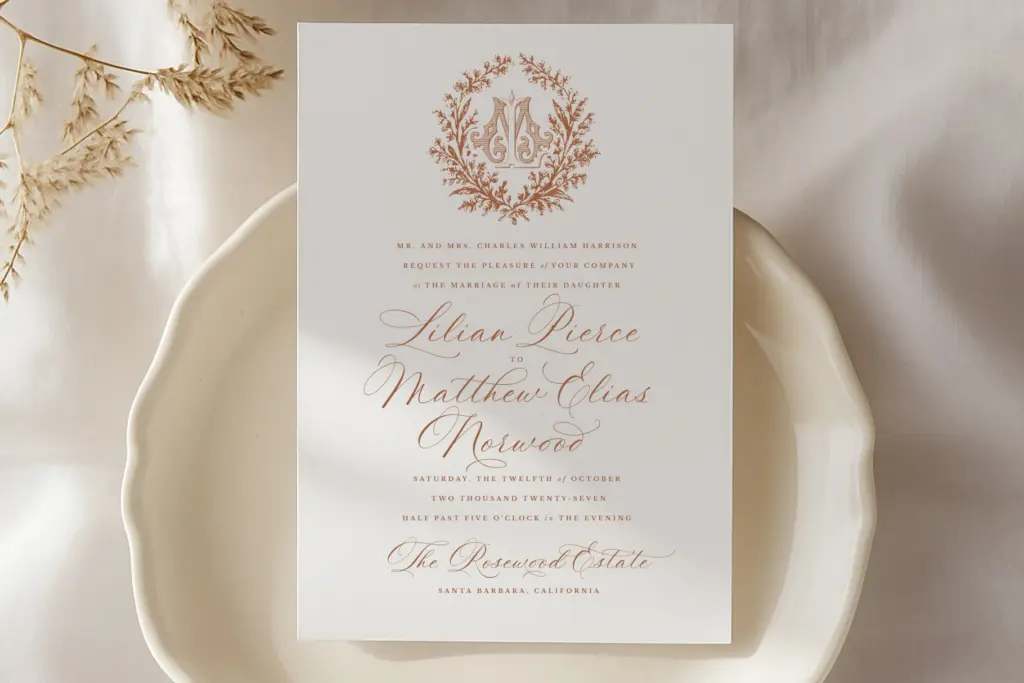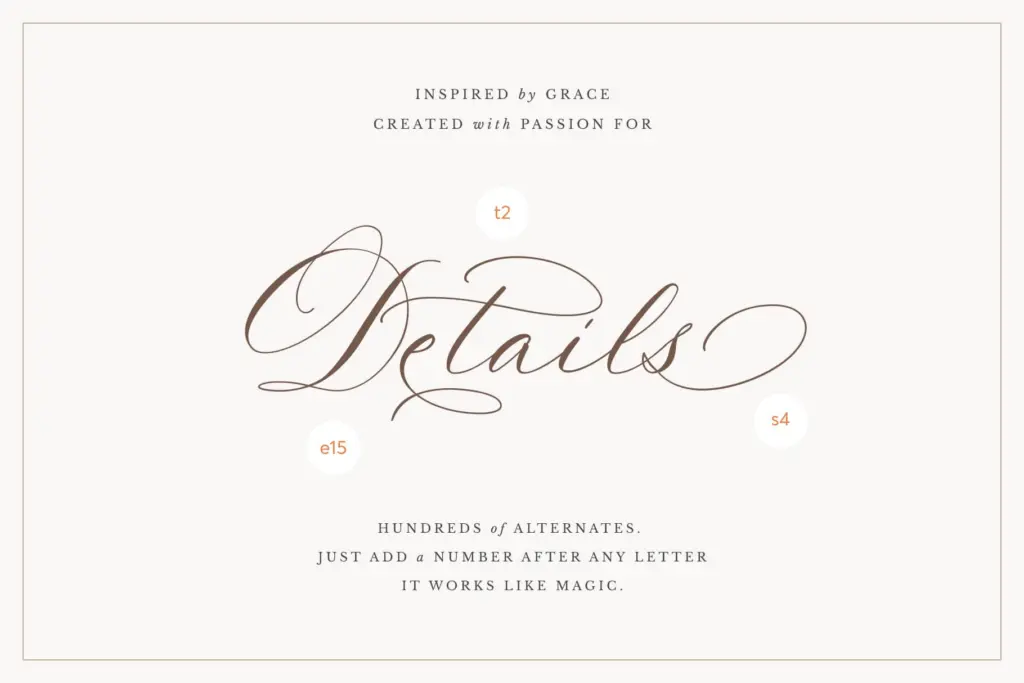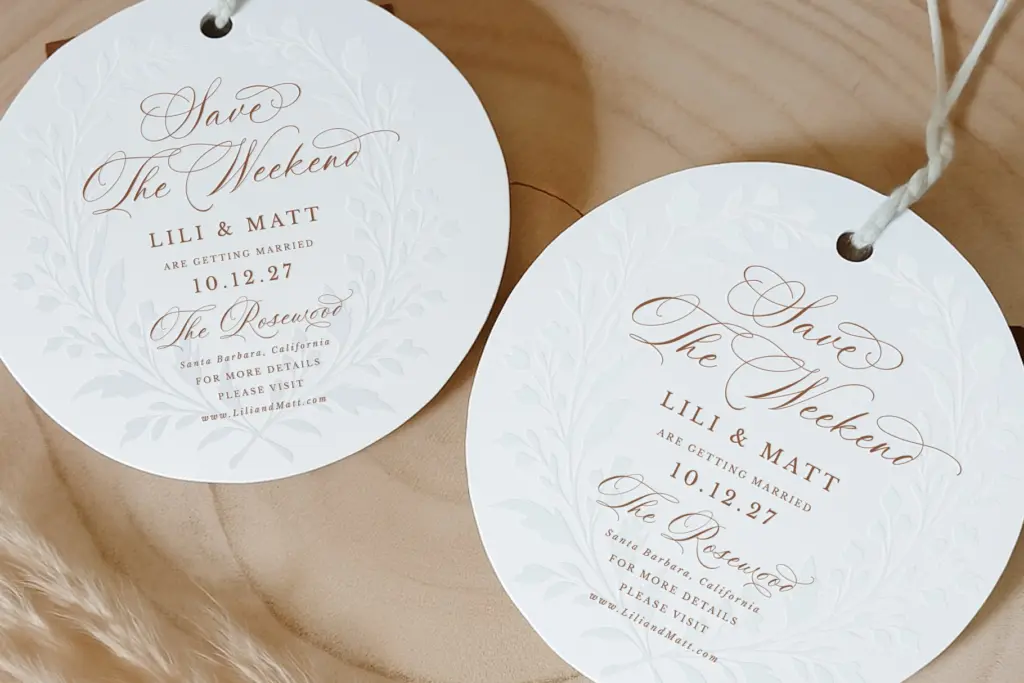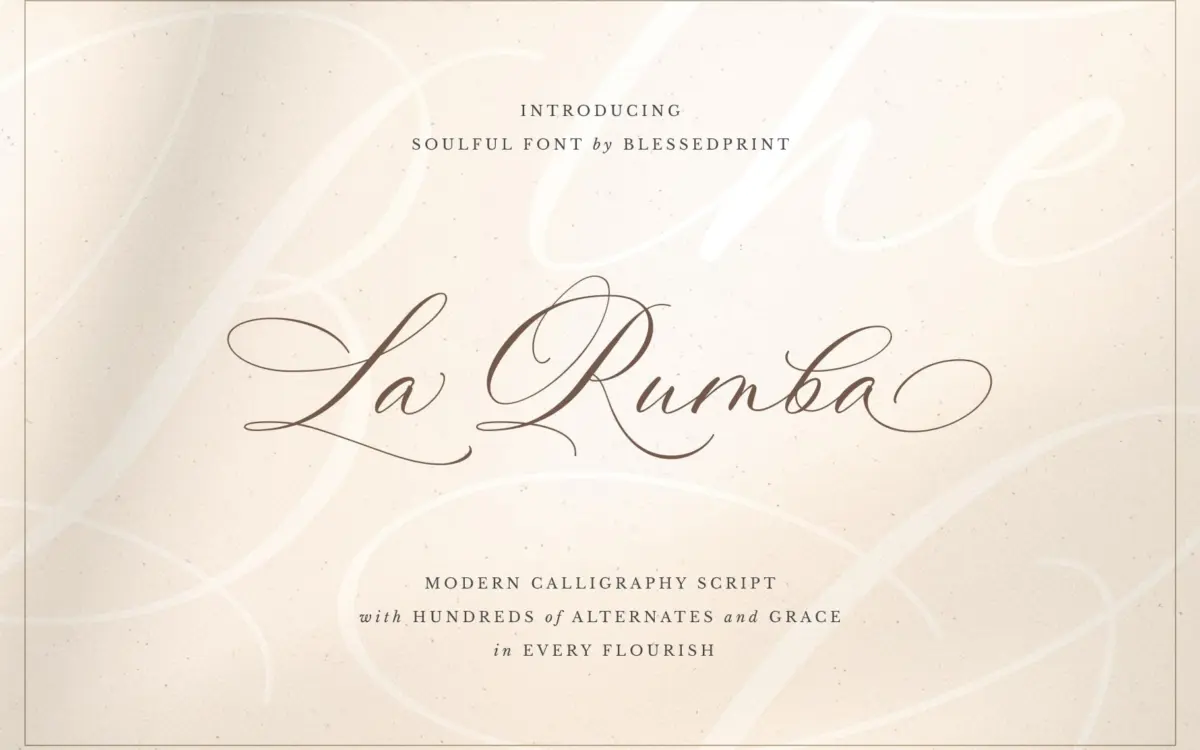
La Rumba sits in the crowded field of modern calligraphy scripts: a connected, brush-influenced lowercase built on a slanted baseline, paired with more restrained capitals that carry the flourish work. The joins are loose rather than mechanical, which gives the font its handwritten claim, but the underlying letter construction is disciplined enough that words don’t collapse into noise. Stroke contrast is moderate — enough to read as calligraphic, not so much that thin hairlines vanish at small sizes. The overall mood is romantic rather than casual, closer to invitation lettering than to a marker-pen sketch.
What separates it from a plain script is the sheer volume of alternate forms built into the design. The lowercase in particular has been drawn with rhythm in mind — long entry and exit strokes that are meant to be swapped in and out depending on neighbouring letters, so a word can be tuned rather than left to default. That’s a design decision as much as a technical one: it assumes the user will spend time adjusting glyphs rather than typing and walking away.
The glyph count here is substantial: over 750 alternates, ligatures and swashes across roughly 1,120 glyphs, with up to 20 lowercase alternates per letter and 6 to 10 capital variations. That’s a genuinely deep character set, and it’s supported by contextual alternates that automatically swap in different first and last letters per word, so simple typing already produces some variation without manual intervention.
Beyond that, the font relies on a numbered-suffix system (typing a letter followed by a number to trigger ligatures) and a plus-sign convention for extra stylistic options, plus bracketed codes for starting and ending swashes. This is a font built for software that supports OpenType features and PUA access — Adobe applications, mainly, though the listing states Canva compatibility as well. Roman numerals are included, useful for invitation dates and anniversary work. The trade-off of this depth is a learning curve: getting the most from La Rumba means opening the glyph panel, or at minimum working through the accompanying PDF, rather than trusting the default typing behaviour to look finished.
This is a font for set pieces, not paragraphs — wedding invitations, save-the-dates, place cards, monograms, packaging labels and signage where a handful of words carry the whole design. The swash capitals and flourished lowercase reward large sizes: a name on a card, a word on a label, a logotype where every letterform gets attention. It is not built for body copy or anywhere legibility at small sizes matters more than character.
Given the target uses listed — wedding designers, luxury packaging, tattoo artists, signage — La Rumba is aimed squarely at decorative, single-word or short-phrase applications rather than general branding systems that need a script to hold up across many contexts. Anyone doing high-volume production work, like personalising many names for stationery, will find the alternate system genuinely useful once learned; anyone wanting fast, no-fuss results from default typing may find it more font than the job requires.
- Extensive alternate and swash system gives real control over rhythm and variation
- Contextual alternates automatically vary word-start and word-end letters without manual work
- Roman numerals and PUA encoding make it usable across different software setups
- Getting good results depends on learning the numbered-suffix and swash-code system, not just typing
- Moderate stroke contrast and heavy flourishing make it unsuitable for small-size or body-text use
La Rumba is a well-drawn, densely featured calligraphy script aimed at invitations, signage and packaging rather than everyday branding. Its strength is the alternate and swash system, but that same depth means it rewards effort more than instant typing. Best suited to designers willing to work the glyph panel rather than accept the defaults.